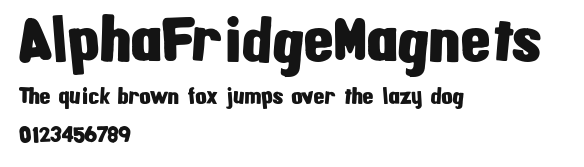
About AlphaFridgeMagnets .ttf
AlphaFridgeMagnets .ttf is a modern, elegant sans-serif font designed for ultimate readability and visual harmony. Perfect for branding, headlines, web design, and print materials.